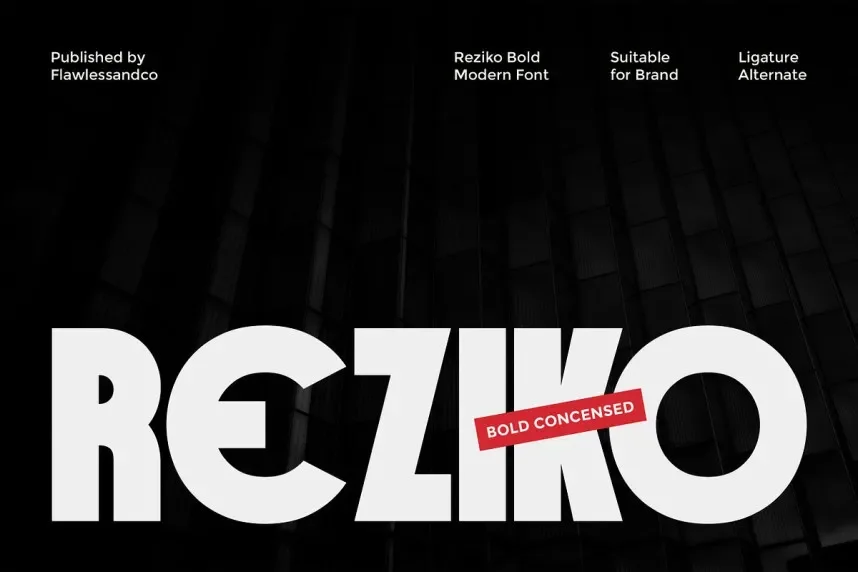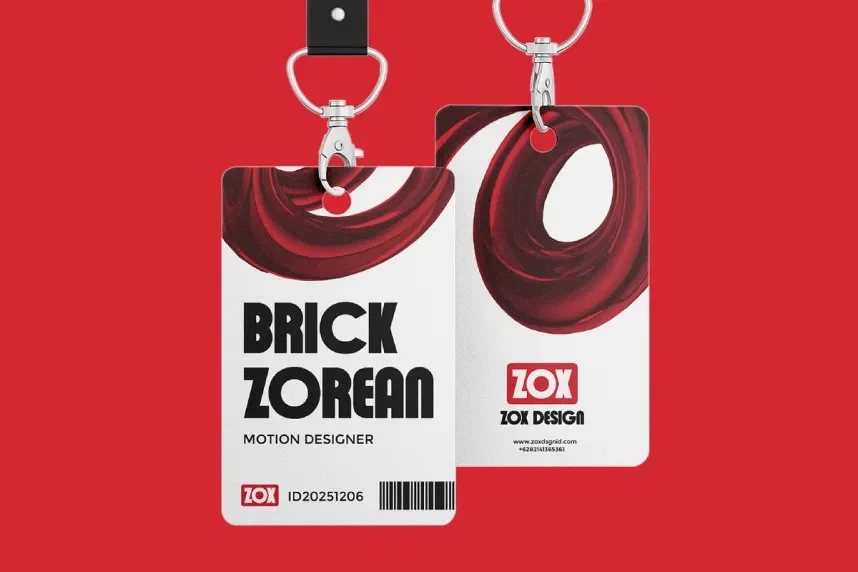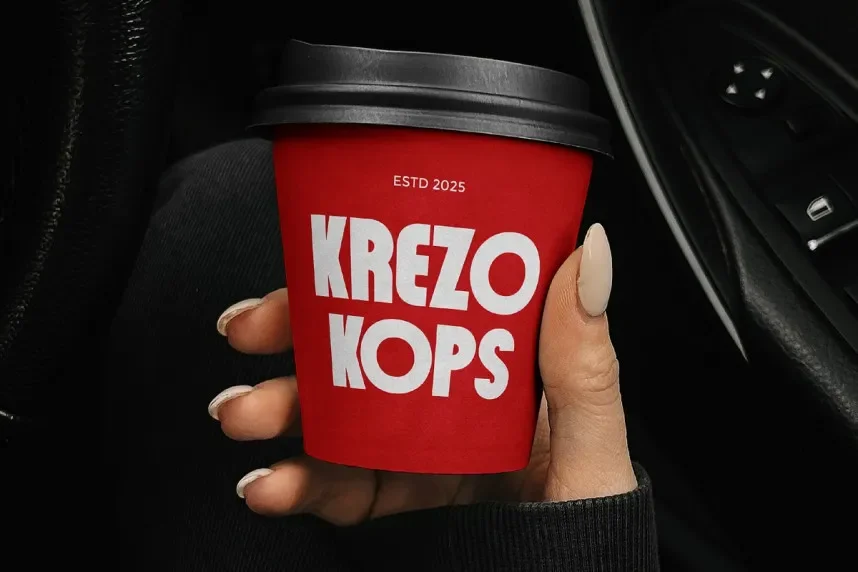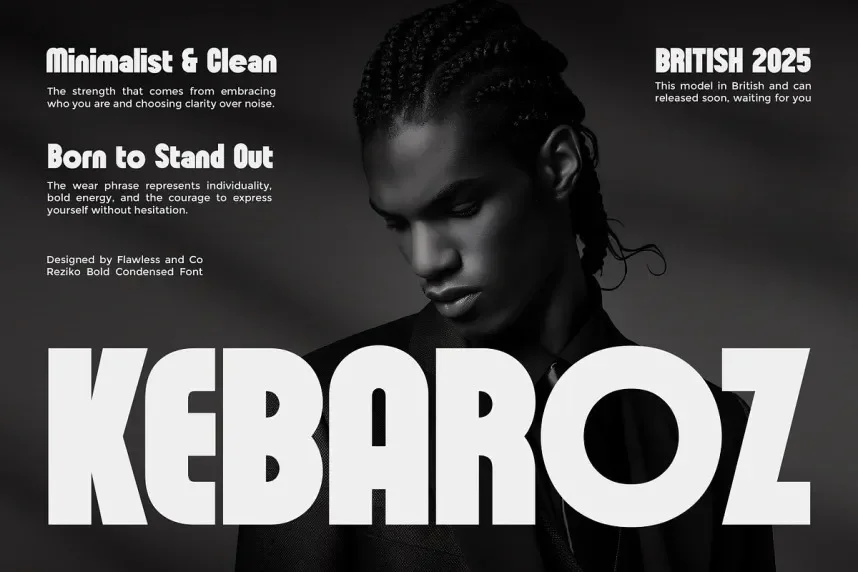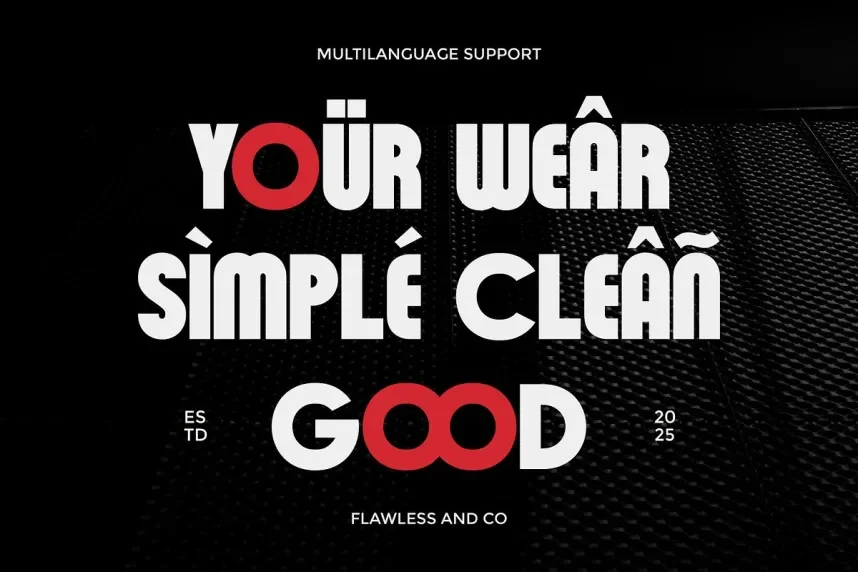
Reziko Font is a geometric sans-serif typeface designed for modern, clean aesthetics. Its sharp lines and even spacing make it perfect for digital interfaces, branding, and projects that require precision and readability, such as web design and corporate materials.